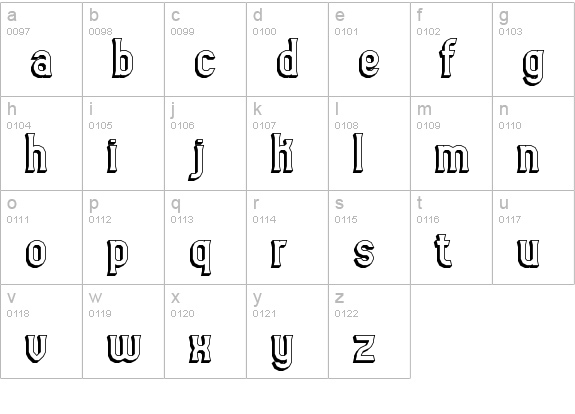
Gyneric 3D BRK Font Details
Gyneric 3D BRK font is a versatile and modern typeface that is perfect for adding depth and dimension to your design projects. This unique font features a 3D effect that adds a dynamic and eye-catching element to any text. With its bold and stylish appearance, Gyneric 3D BRK font is ideal for creating attention-grabbing headlines, logos, and posters. One of the best things about Gyneric 3D BRK font is that it is available for free download at FontsMarket.com. This means that you can easily add this striking font to your collection without breaking the bank. Whether you are a professional designer or a hobbyist looking to spice up your projects, Gyneric 3D BRK font is a fantastic choice that will elevate your designs to the next level. Download this font today and start creating stunning visuals that will leave a lasting impression.